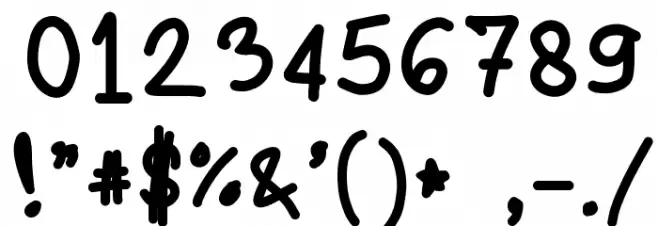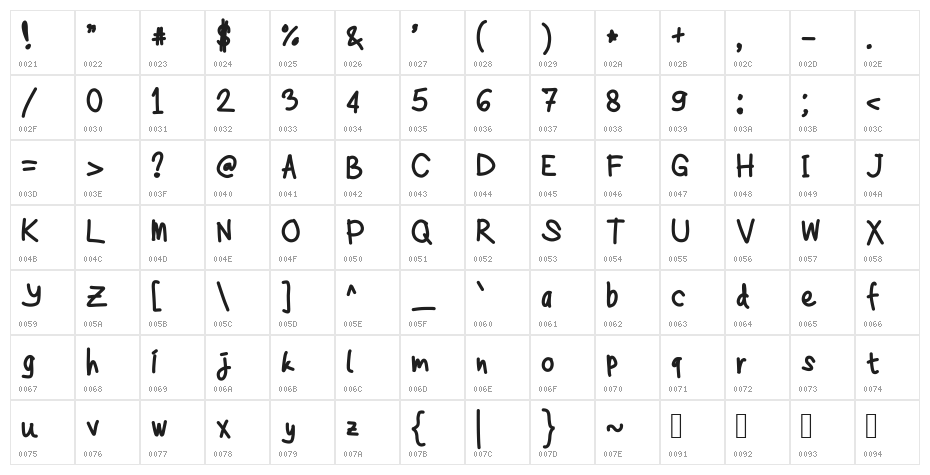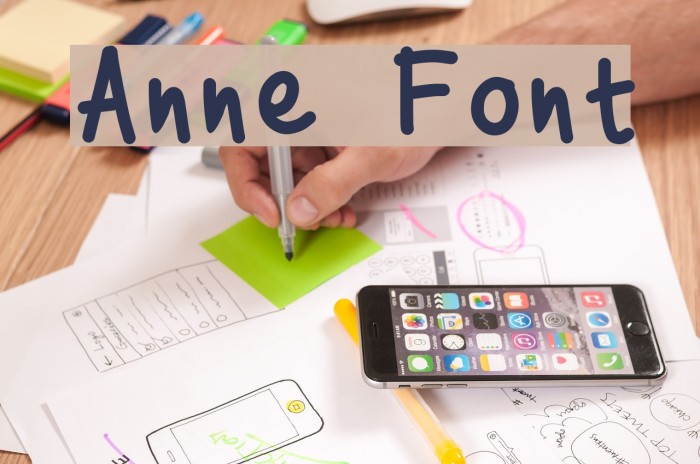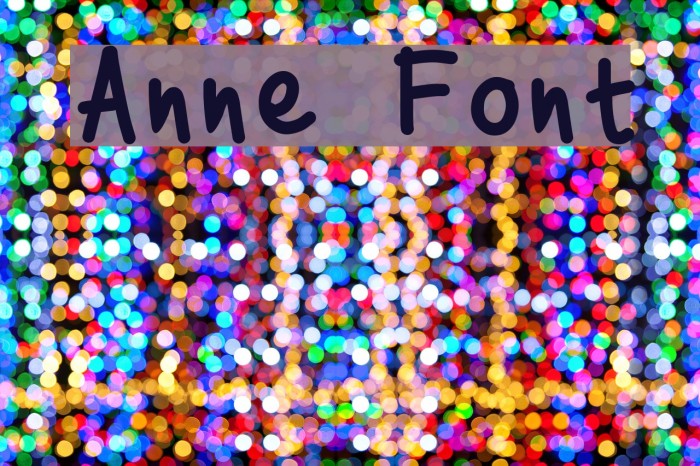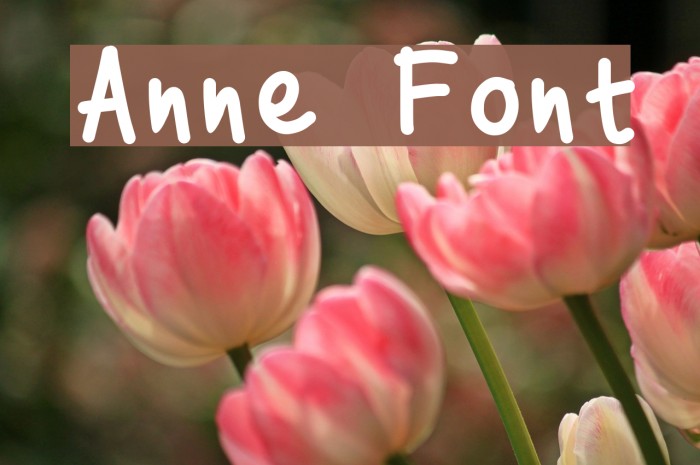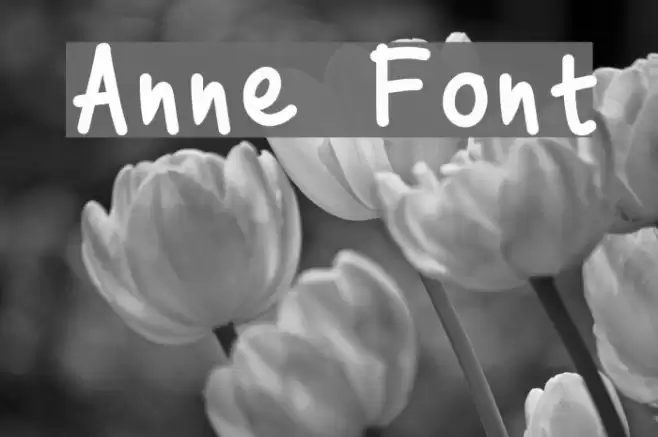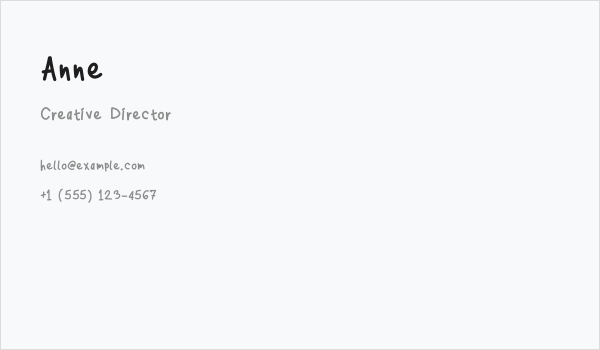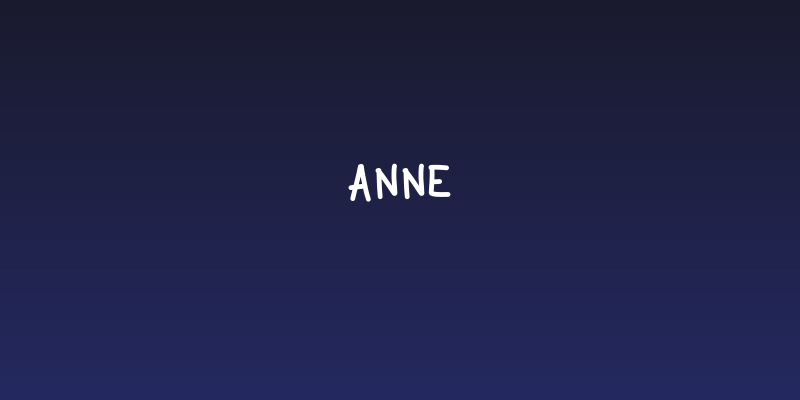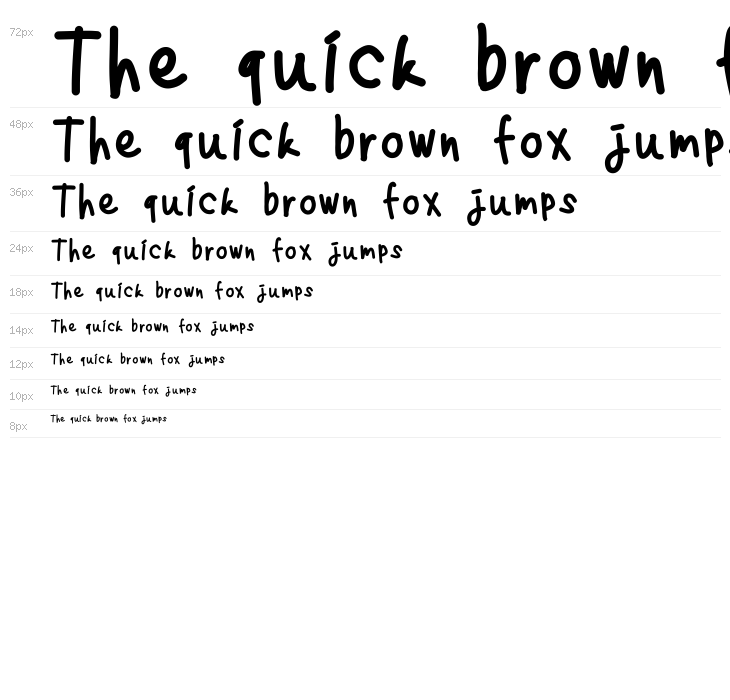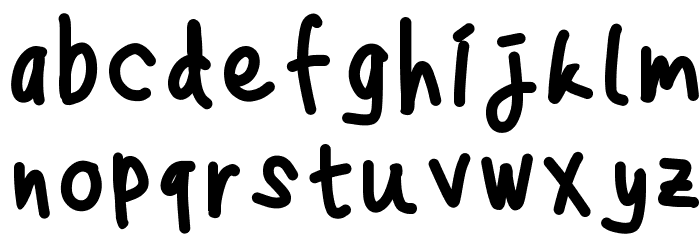
Anne Font
Anne Description
This font features a playful and casual handwritten style, characterized by its rounded and slightly irregular letterforms. The uppercase and lowercase letters maintain a consistent flow, giving it a friendly and approachable appearance. The numerals and special characters complement the overall style, making it versatile for various uses. The strokes are moderately thick, providing good readability while retaining a whimsical charm. This font is ideal for projects that require a personal touch or an informal tone.
| Use Case | Headlines, Informal text, Branding |
| Proposed Projects | Great for greeting cards, children's books, casual branding, and social media graphics. |